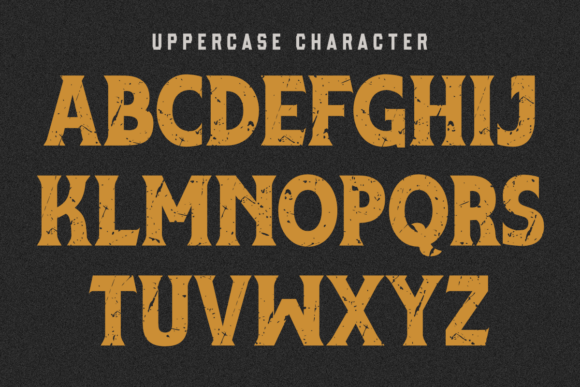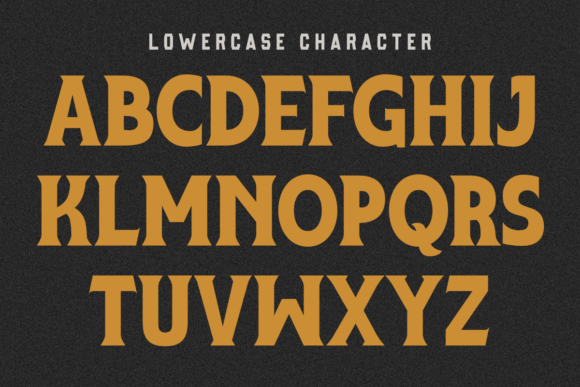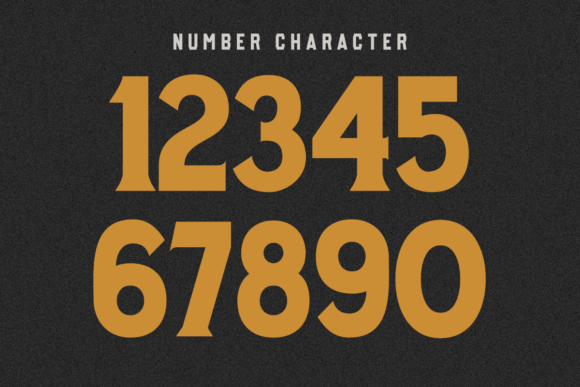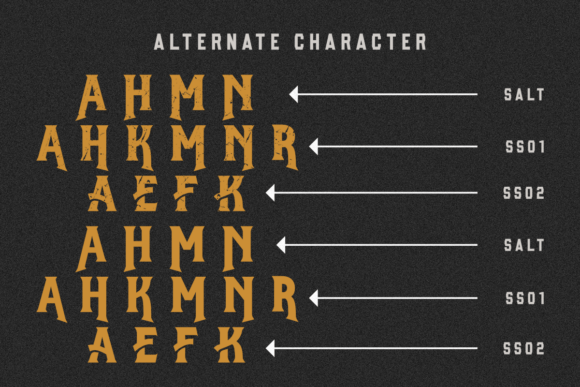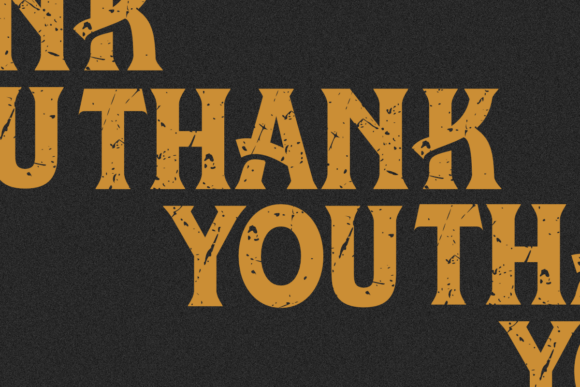
Introduction to Neilson Font
Introducing, Neilson – an artfully crafted vintage font.
This timeless typography brings an authentic antique charm, perfect for personalizing quotes, infusing a retro vibe into t-shirts and tote bags, and lending a classic flair to greeting cards For mugs and all designs craving an added layer of heritage, Neilson is the go-to typography for drawing nostalgia and creating that truly vintage aura.
Key Features of Neilson Font
Why Choose Neilson Font?